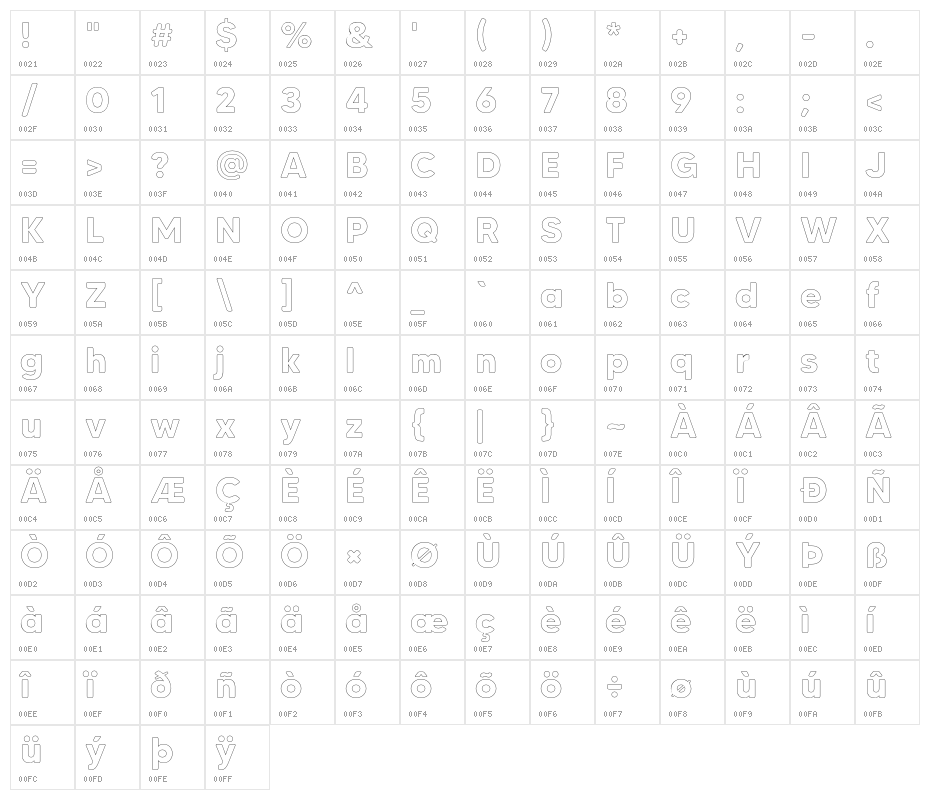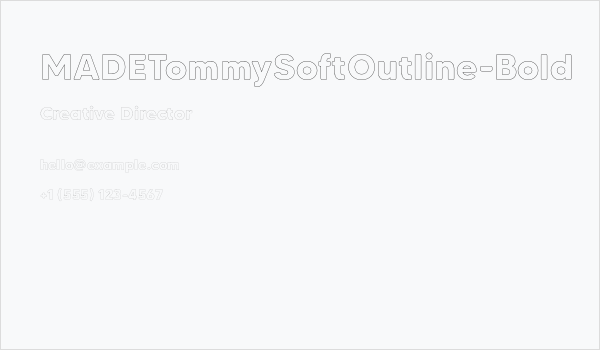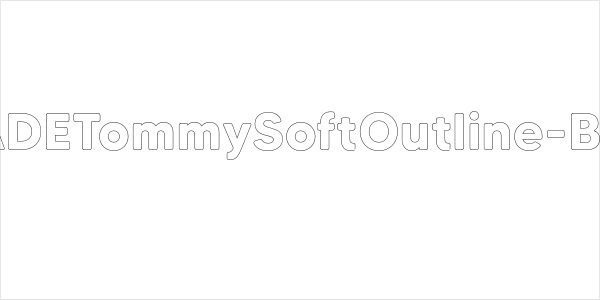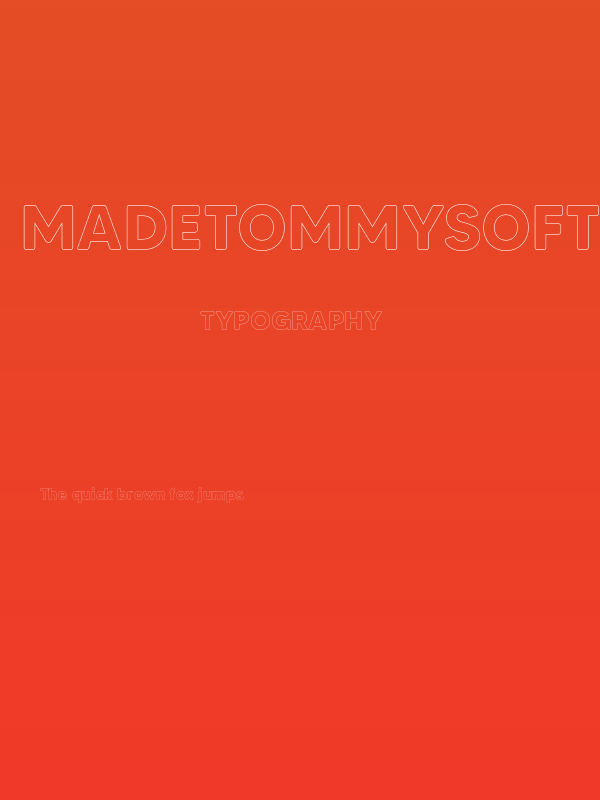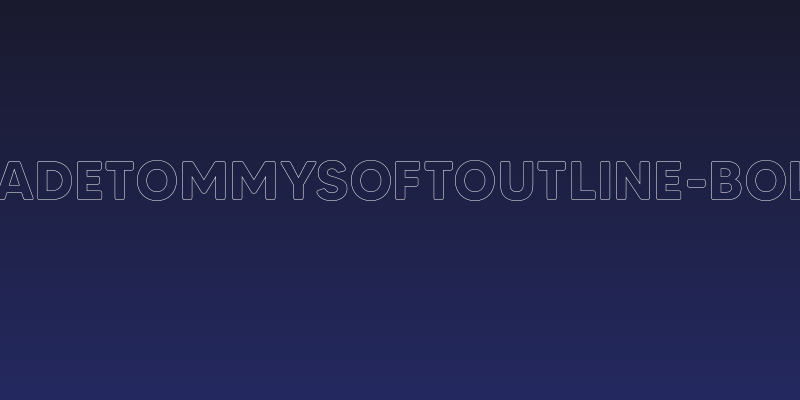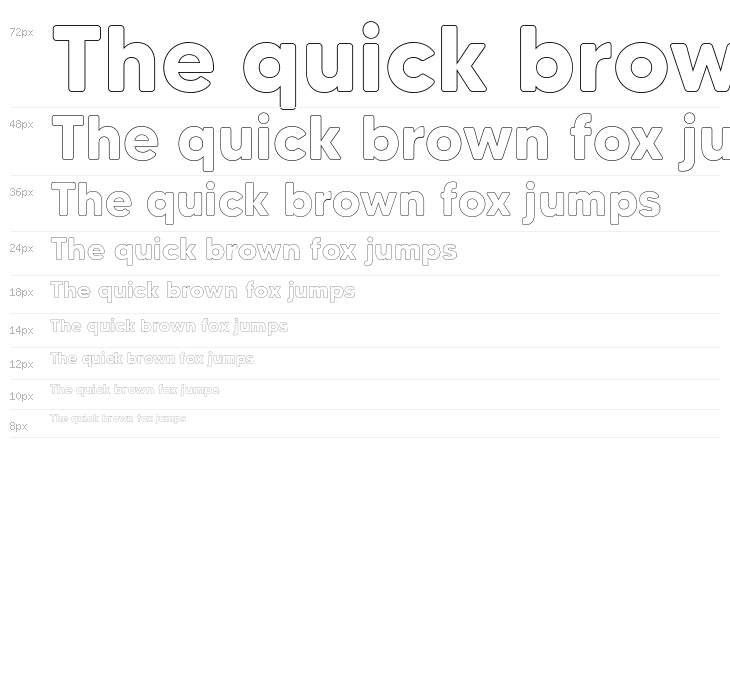
MADETommySoftOutline-Bold Font
MADETommySoftOutline-Bold Description
This font features a clean and modern outline style, characterized by its bold and rounded letterforms. The uppercase and lowercase letters maintain a consistent width, providing a harmonious and balanced appearance. The numerals are equally bold and well-defined, ensuring readability. Special characters are designed with the same attention to detail, making them suitable for various design applications. The overall aesthetic is contemporary and versatile, making it ideal for projects that require a strong visual impact without overwhelming the viewer.
| Proposed Projects | Ideal for branding, headlines, posters, and digital media where a modern and impactful look is desired. |